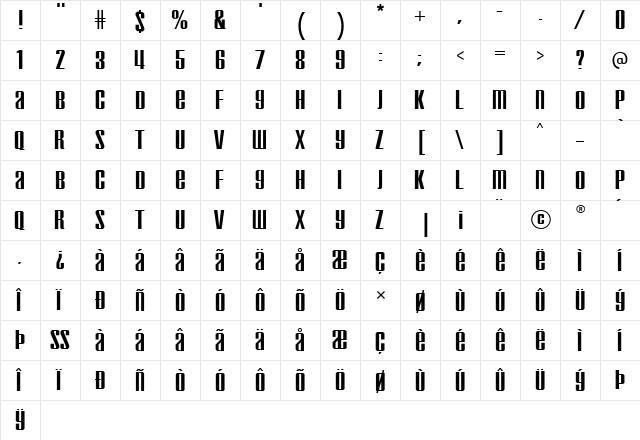
Inflammable Age Regular
Design Context for Inflammable Age Typeface
Inflammable Age offers clean, dependable letterforms without strong stylistic allegiance, making it a practical choice for designers who need flexibility.